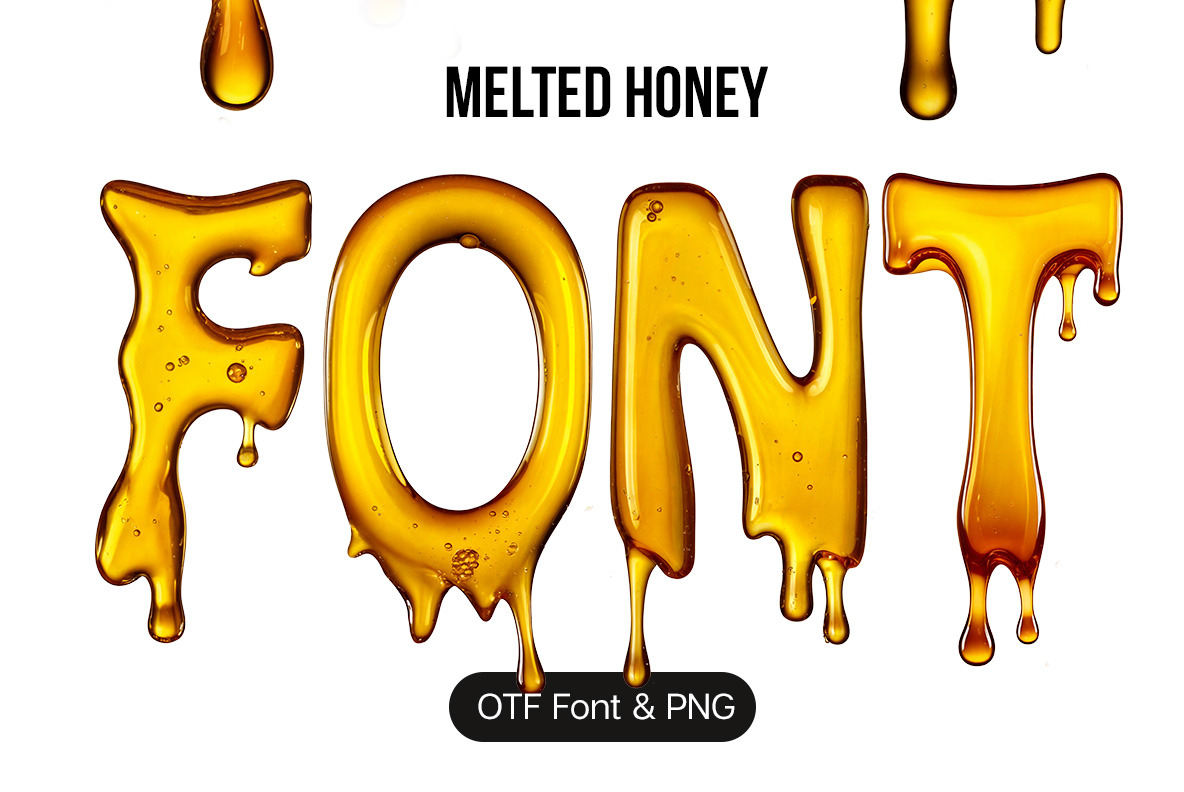
Melted Honey Font
Melted Honey Font is a sweet, flowing typeface inspired by the smooth drip of honey. Its organic, playful curves bring warmth and charm to any design. Perfect for branding, invitations, packaging, or playful projects, this font adds a touch of natural sweetness and elegance to your text.